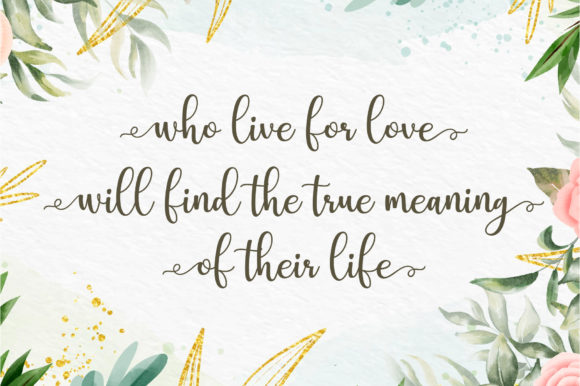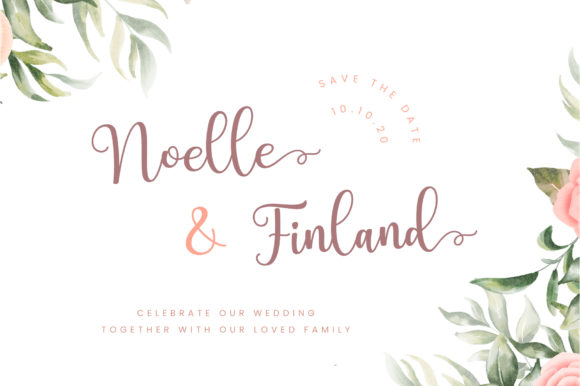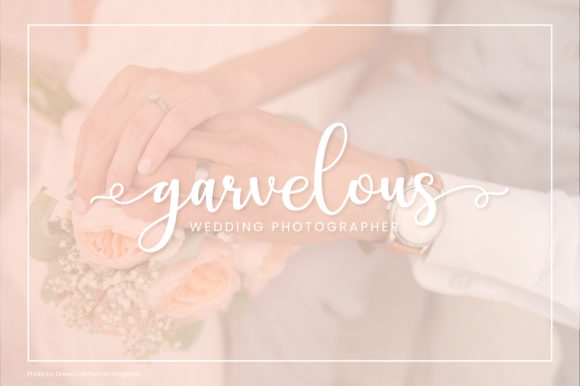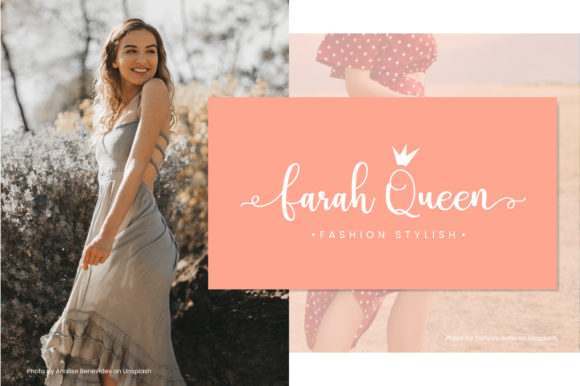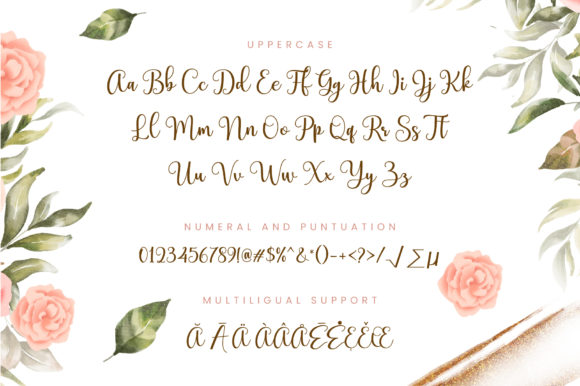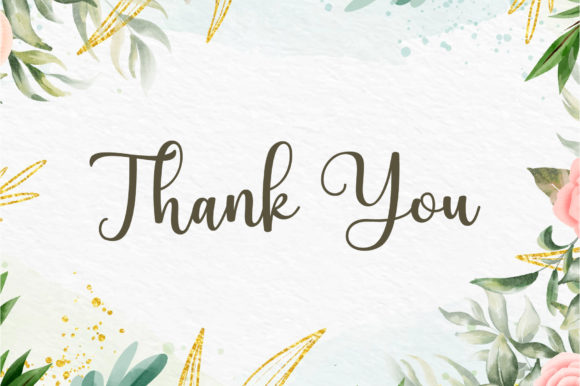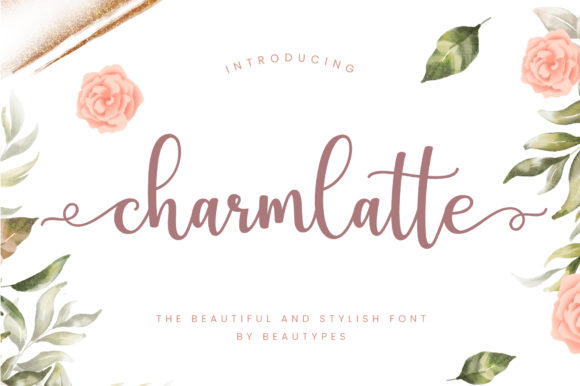
Introducing Charmlatte Font: The Sweet and Romantic Handwritten Font for Your Dreamy Designs
Are you a designer or crafter looking for a font that can add a touch of sweetness and romance to your designs? Look no further than Charmlatte Font! This beautiful handwritten font is perfect for creating dreamy and captivating designs that will leave a lasting impression on your audience.
What Makes Charmlatte Font So Special?
Charmlatte Font is a unique and elegant handwritten font that features a varying baseline, smooth lines, gorgeous glyphs, and stunning alternates. This combination of characteristics gives Charmlatte Font a distinctive and charming look that is sure to make your designs stand out.
One of the standout features of Charmlatte Font is its varying baseline. This means that the letters in the font do not sit on a straight line, but instead have a subtle movement and flow to them. This creates a sense of whimsy and playfulness, making Charmlatte Font perfect for designs that require a touch of personality.
Another feature that sets Charmlatte Font apart is its smooth lines. The font has a beautiful, cursive feel to it, with smooth and flowing lines that give it a luxurious and elegant look. This makes Charmlatte Font perfect for designs that require a touch of sophistication and glamour.
In addition to its varying baseline and smooth lines, Charmlatte Font also features gorgeous glyphs and stunning alternates. The font includes a range of glyphs and alternates that allow you to customize your designs and add your own personal touch. This means that you can use Charmlatte Font to create truly unique and one-of-a-kind designs that reflect your personal style.
How to Use Charmlatte Font in Your Designs
Charmlatte Font is a versatile font that can be used in a wide range of designs, from romantic and whimsical to elegant and sophisticated. Here are a few ideas for how you can use Charmlatte Font in your designs:
- Wedding and Event Designs: Charmlatte Font is perfect for wedding and event designs, such as invitations, programs, and signage. Its romantic and elegant feel makes it ideal for creating beautiful and memorable designs.
- Branding and Packaging: Charmlatte Font can also be used in branding and packaging designs, such as logos, labels, and packaging materials. Its unique and charming look makes it perfect for creating eye-catching and memorable designs.
- Stationery and Paper Crafts: Charmlatte Font is also great for stationery and paper crafts, such as greeting cards, journals, and planners. Its whimsical and playful feel makes it perfect for creating fun and creative designs.
Why Choose Charmlatte Font?
There are many reasons why you should choose Charmlatte Font for your designs. Here are a few:
- Unique and Charming Look: Charmlatte Font has a unique and charming look that is sure to make your designs stand out.
- Versatile: Charmlatte Font is a versatile font that can be used in a wide range of designs, from romantic and whimsical to elegant and sophisticated.
- High-Quality: Charmlatte Font is a high-quality font that is designed to look great in any design.
In conclusion, Charmlatte Font is a beautiful and charming handwritten font that is perfect for designers and crafters who want to add a touch of sweetness and romance to their designs. With its varying baseline, smooth lines, gorgeous glyphs, and stunning alternates, Charmlatte Font is sure to make your designs stand out. Whether you’re creating wedding and event designs, branding and packaging, or stationery and paper crafts, Charmlatte Font is a great choice. So why wait? Download Charmlatte Font today and start creating your dreamy designs!